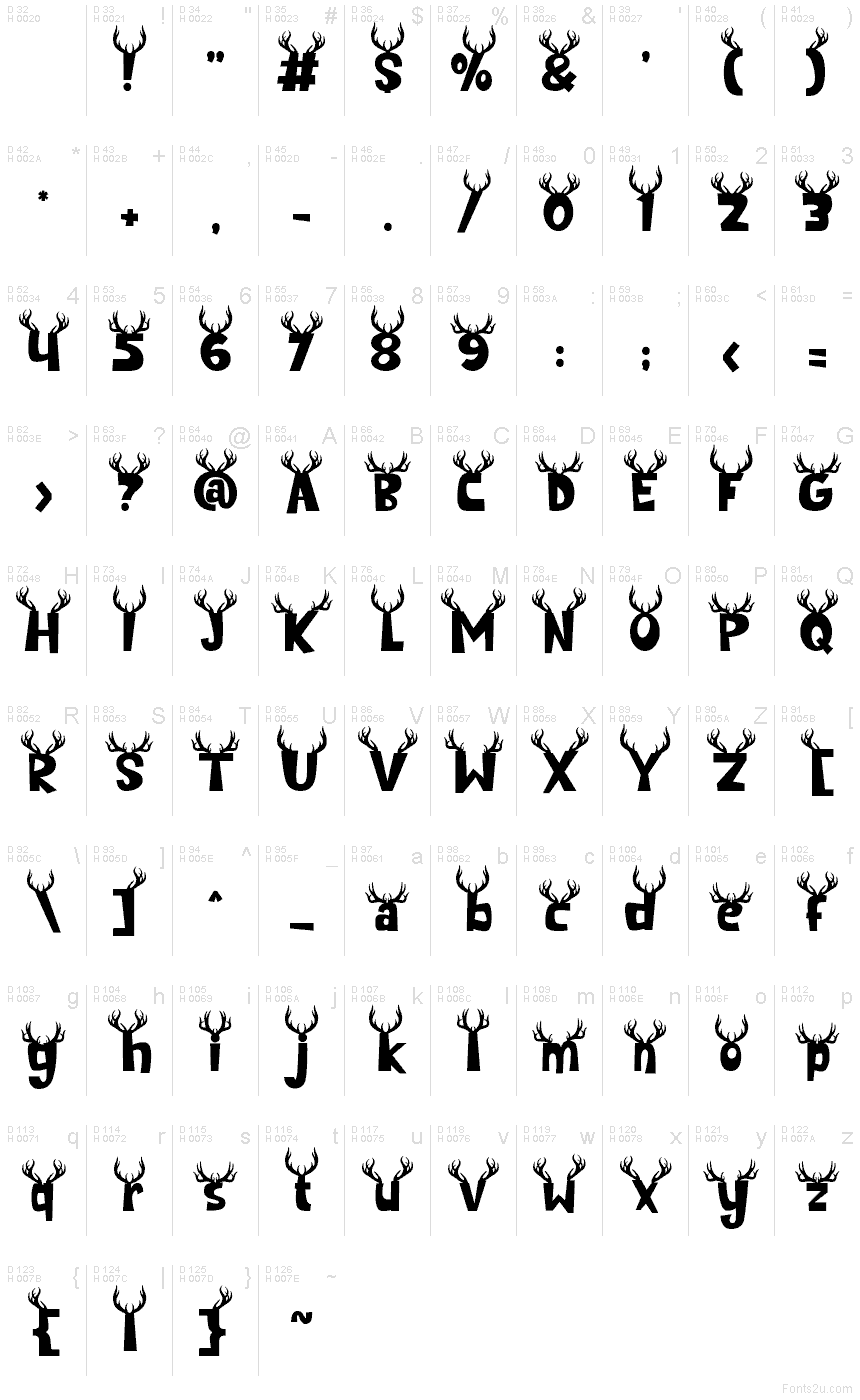
Cedar Heaven Antler
Cedar Heaven Antler font by PutraCetol Studio is a display font inspired by nature and wild antlers. The decorative font has a distinct, organic aesthetic with an artistic touch. This experimentative typeface features unusual shapes whose exaggerated lines form unexpected extensions in many directions. These visually dynamic and animated elements make Cedar Heaven Antler perfect for your fun and memorable design projects.